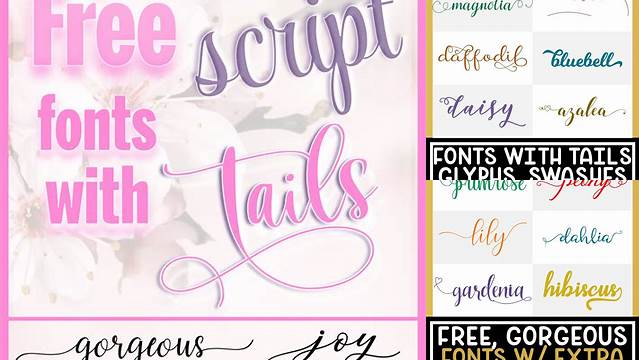
Elegant Cursive Fonts With Tails For Cricut
Hey crafters! Looking to add a touch of elegance to your projects? Then you're in the right place! We're diving deep into the world of cricut cursive fonts with tails today. These fonts are perfect for everything from wedding invitations to personalized gifts, and we're going to explore all the best options and how to use them like a pro. Let’s get started, guys!
1. What are Cursive Fonts with Tails?
So, what exactly are cursive fonts with tails? Well, these are script fonts that feature decorative strokes, or “tails,” extending from the letters. These tails, sometimes called swashes or flourishes, add a touch of sophistication and flair, making your text look handwritten and extra special. When you're working on a project that needs a bit of cricut cursive fonts with tails magic, these are your go-to options. Think about those beautiful wedding invitations or personalized home decor items – often, it’s the elegant font that truly makes them stand out. Understanding the characteristics of these fonts helps you select the perfect one for your project, ensuring it conveys the desired mood and style. The right font can transform a simple design into a stunning masterpiece.
2. Why Use Cursive Fonts with Tails for Cricut Projects?
Why should you bother using cursive fonts with tails for your Cricut projects? Simple: they add a touch of elegance and personality that other fonts just can't match. Imagine crafting a custom greeting card – a font with a beautiful tail on the final letter instantly elevates the design. Plus, with Cricut Design Space, it’s super easy to weld these fonts together, so your words flow seamlessly. When thinking about cricut cursive fonts with tails, consider how they can enhance your project's overall aesthetic. They're not just about looking pretty; they're about creating a lasting impression. Whether you're making personalized gifts, home décor, or event stationery, these fonts bring a level of sophistication that’s hard to ignore. And let's be honest, who doesn’t love a little extra flair?
3. Popular Cursive Fonts with Tails for Cricut
Okay, let's dive into some popular cricut cursive fonts with tails that you can use for your Cricut projects. Some top contenders include Samantha Script, known for its extensive set of alternate characters and elegant flourishes. Another great option is Sweet Pea, which has a more playful but still sophisticated vibe. Shelley Allegro Script is also a classic choice, offering a timeless and refined look. These fonts are widely used because they are versatile and work well for a variety of projects. When you're selecting a font, consider the overall style you're aiming for. Do you want something very formal and traditional, or a bit more modern and whimsical? Knowing this will help you narrow down your choices and find the perfect fit for your creation.
4. Samantha Script: A Detailed Look
Let’s take a closer look at Samantha Script, one of the most beloved cricut cursive fonts with tails. This font is a crafter's dream because it comes with hundreds of alternates, swashes, and flourishes. You can really customize your text to make it look unique and handcrafted. The flowing lines and elegant tails make it ideal for wedding invitations, monograms, and personalized gifts. When using Samantha Script, take advantage of its extensive character set. Experiment with different letter combinations and swashes to achieve the exact look you want. This font is particularly stunning when used for larger text, allowing the delicate details of the tails to truly shine. It’s a true workhorse for any project needing that touch of elegance.
5. Sweet Pea Font: A Playful Option
If you're after something a little less formal but still beautiful, Sweet Pea is a fantastic cricut cursive fonts with tails choice. This font has a playful and whimsical feel, making it perfect for projects like nursery decor, birthday cards, or anything that needs a touch of sweetness. The tails are less dramatic than Samantha Script, but they still add plenty of charm. Sweet Pea is also super readable, which is important for projects where clarity is key. When working with this font, think about using it in conjunction with a simpler sans-serif font to create a balanced and visually appealing design. It’s great for adding a personal touch to any project, making it feel extra special and made with love.
6. Shelley Allegro Script: Timeless Elegance
For a timeless and elegant look, Shelley Allegro Script is a top pick in the world of cricut cursive fonts with tails. This font exudes sophistication and is perfect for formal occasions like weddings or anniversaries. The graceful curves and delicate tails give it a classic, refined appearance. Shelley Allegro Script is particularly well-suited for projects where you want to convey a sense of tradition and luxury. It’s often used in high-end stationery and formal invitations. When using this font, pay attention to the spacing between letters to ensure optimal readability. The flowing tails can sometimes overlap, so it’s essential to adjust the kerning to achieve a polished and professional look. Elegance is the name of the game with this font!
7. How to Download Cursive Fonts with Tails
So, how do you actually get these gorgeous cricut cursive fonts with tails onto your computer and into Cricut Design Space? There are several ways to download fonts. Many designers sell their fonts on websites like Etsy, Creative Market, and FontBundles. You can also find free fonts on sites like DaFont and Google Fonts, but always double-check the licensing terms to make sure they're okay for commercial use if you plan on selling your creations. Once you've downloaded the font, you'll usually need to install it on your computer before it will show up in Cricut Design Space. This typically involves double-clicking the font file and following the installation prompts. It’s a straightforward process, but don’t forget that licensing is key to avoid any legal issues!
8. Installing Fonts for Cricut Design Space
Installing fonts for Cricut Design Space is a crucial step in using cricut cursive fonts with tails. After you've downloaded your font, you'll need to install it on your computer. On Windows, this usually involves right-clicking the font file and selecting “Install.” On a Mac, you can double-click the font file, and it will open in Font Book, where you can click “Install Font.” Once the font is installed, you'll likely need to restart Cricut Design Space for it to recognize the new font. Sometimes, even restarting your computer can help ensure the font loads properly. Remember, the font needs to be installed on your system for Cricut Design Space to access it. It’s a simple process, but it’s a necessary one to unleash your creative potential!
9. Welding Cursive Fonts in Cricut Design Space
Weld, weld, weld! Welding is essential when working with cricut cursive fonts with tails in Cricut Design Space. Because cursive letters are designed to connect, you'll want to weld them together so they cut as a single piece, rather than individual letters. This is particularly important for fonts with tails, as the tails often overlap and need to be seamlessly joined. In Cricut Design Space, you can select your text, go to the “Actions” menu, and click “Weld.” This will merge the letters into a single shape, ensuring a clean and professional cut. If you skip this step, your Cricut will cut each letter separately, which can look disjointed and messy. Welding is your secret weapon for achieving that flawless cursive look, so don’t forget this crucial step!
10. Adjusting Letter Spacing (Kerning) in Cricut
Getting the letter spacing just right, also known as kerning, is super important when using cricut cursive fonts with tails. Sometimes, the default spacing between letters in a font isn't ideal, especially with the added tails. Letters might look too close together or too far apart, which can affect readability and the overall aesthetic. Cricut Design Space has tools to adjust letter spacing. You can manually adjust the spacing by ungrouping the letters and moving them individually, or you can use the letter spacing tool to adjust the spacing more uniformly. Pay close attention to how the tails interact with adjacent letters. You might need to tweak the position of certain letters to ensure a smooth, flowing look. Perfect kerning can make all the difference in the final result!
11. Using Alternate Characters and Swashes
One of the coolest features of many cricut cursive fonts with tails is the availability of alternate characters and swashes. These are special versions of letters that add extra flair and customization to your text. For example, a font might have several versions of the letter “t,” each with a different tail. To access these alternates in Cricut Design Space, you'll typically need to use a character map program (on Windows) or the Font Book (on Mac). These programs let you see all the characters included in a font, including the hidden alternates. Copy and paste the desired characters into Cricut Design Space to create a truly unique design. Experimenting with alternates is a fantastic way to add personality and make your projects stand out!
12. Cursive Fonts with Tails for Wedding Invitations
When it comes to wedding invitations, cricut cursive fonts with tails are a match made in heaven. These fonts add a touch of romance and elegance, perfect for setting the tone for a special day. Imagine sending out invitations with beautifully flowing calligraphy, personalized with a stunning font. Popular choices for wedding invitations include Samantha Script, Shelley Allegro Script, and other similar fonts that exude sophistication. When designing your invitations, consider using a combination of a cursive font for the names and a simpler sans-serif font for the details like date and time. This creates a balanced and readable design. Remember, your wedding invitations are the first impression your guests will have of your big day, so make it count with a gorgeous cursive font!
13. Creating Personalized Gifts with Cursive Fonts
Personalized gifts are always a hit, and cricut cursive fonts with tails can take them to the next level. Think about adding a name or a special message to a mug, a tote bag, or a piece of home decor. These fonts make the gift feel extra special and thoughtful. For example, a delicate cursive font on a baby blanket or a mug with a monogrammed initial makes a heartfelt present. When creating personalized gifts, consider the recipient's style and preferences. A more playful font like Sweet Pea might be perfect for a child's gift, while a classic font like Shelley Allegro Script might be better suited for a more formal occasion. Using the right font can transform a simple gift into a cherished keepsake. A dash of cursive elegance goes a long way!
14. Home Decor Projects Using Cursive Fonts
Adding cricut cursive fonts with tails to your home decor projects is a fantastic way to personalize your space. Imagine creating a beautiful wall sign with an inspiring quote or adding custom labels to your storage containers. Cursive fonts bring a touch of warmth and personality to any room. You can use your Cricut to cut out vinyl decals, stencils, or even engrave wood or acrylic. Consider using a larger font size for wall decor so the tails and flourishes are easily visible. Font choices like Samantha Script or even a bold, modern cursive can make a statement piece. Home decor is all about expressing your style, and incorporating elegant typography is a great way to do it!
15. Monogramming with Cursive Fonts
Monogramming is a classic way to personalize items, and cricut cursive fonts with tails are perfect for creating beautiful monograms. Whether you're adding initials to a towel, a bag, or a piece of clothing, a cursive font gives it a sophisticated and custom look. Many fonts come with special monogram characters or swashes that are designed specifically for this purpose. When creating monograms, consider the order of the initials and the size of the letters. Traditionally, the last name initial is placed in the center and is slightly larger than the other initials. A well-designed monogram adds a touch of personal flair and elevates any item it adorns.
16. Using Cursive Fonts for Business Branding
Cricut cursive fonts with tails can also play a significant role in business branding. A stylish cursive font can help your brand convey a sense of elegance, sophistication, or creativity. Think about using a cursive font for your logo, website headers, or marketing materials. It can help your brand stand out and make a memorable impression. However, it’s essential to use cursive fonts strategically. While they can add a touch of personality, you also want to ensure your branding is clear and readable. A cursive font paired with a simpler sans-serif font often creates a balanced and professional look. When it comes to branding, the right font can communicate your brand identity effectively.
17. Combining Cursive Fonts with Other Font Styles
One of the best ways to make your designs truly shine is by combining cricut cursive fonts with tails with other font styles. Pairing a cursive font with a clean sans-serif or a bold serif font can create a visually appealing contrast that enhances readability and adds interest to your project. For example, you might use a cursive font for a heading or title and a sans-serif font for the body text. This approach helps to create a balanced and professional design. When choosing fonts to combine, consider their overall style and weight. A delicate cursive font pairs well with a bolder, more substantial font. The key is to create a harmonious balance that’s both visually engaging and easy to read.
18. Best Materials to Use with Cursive Fonts
When working with cricut cursive fonts with tails, the material you choose can significantly impact the final result. For delicate fonts with intricate tails, it’s crucial to use high-quality materials that won’t tear or fray during cutting. Vinyl is a popular choice for cursive fonts, as it adheres well to various surfaces and provides a clean, crisp cut. Paper and cardstock are also great options, especially for projects like invitations and cards. For fabric projects, consider using heat transfer vinyl, which can be easily applied with a heat press or iron. No matter the material, always do a test cut first to ensure your font cuts cleanly and the tails don’t get damaged. Material matters when you want a flawless finish!
19. Cutting Delicate Tails: Tips and Tricks
Cutting delicate tails on cricut cursive fonts with tails can be a bit tricky, but with the right tips and tricks, you can achieve stunning results. First, make sure your blade is sharp and your cutting mat is clean and sticky. A dull blade or a dirty mat can cause the material to tear or lift during cutting. Use the correct cut settings for your material. If the tails are particularly fine, try using the “Intricate Cut” setting on your Cricut. Slowing down the cutting speed can also help. After cutting, carefully weed the excess material, using a weeding tool to gently lift the vinyl or paper away from the tails. Patience is key here. With a little practice, you’ll be cutting those delicate tails like a pro!
20. Troubleshooting Common Cutting Issues
Even with the best planning, you might encounter some cutting issues when working with cricut cursive fonts with tails. One common problem is tearing, which can occur if your blade is dull, your material is too thin, or your cut settings are incorrect. Another issue is lifting, where the material lifts off the cutting mat during the cut. This can be caused by a worn-out mat or a material that isn’t adhering well. To troubleshoot, start by checking your blade and mat. Replace the blade if it’s dull, and clean or replace your mat if it’s not sticky enough. Adjust your cut settings and try a test cut. If you’re still having problems, try using a different material or slowing down the cutting speed. Troubleshooting is all part of the crafting process!
21. Maintaining Your Cricut for Optimal Font Cutting
To ensure your Cricut consistently cuts cricut cursive fonts with tails beautifully, regular maintenance is crucial. A well-maintained machine will perform better and last longer. Start by cleaning your cutting mat regularly. Use a scraper or a lint roller to remove any debris. Replace your blade as needed, especially if you notice tearing or uneven cuts. Check your machine’s rollers and clean them if they’re dirty. Periodically calibrate your Cricut to ensure it’s cutting accurately. Following a regular maintenance schedule will keep your Cricut in top condition and help you achieve flawless results every time. Think of it as giving your Cricut some TLC!
22. Free vs. Paid Cursive Fonts with Tails
When searching for cricut cursive fonts with tails, you'll come across both free and paid options. Free fonts can be a great way to start, but it’s essential to pay attention to licensing terms. Many free fonts are for personal use only, meaning you can’t use them for commercial projects. Paid fonts often come with a wider range of characters and better support, and they typically have a commercial license included. Consider your needs and budget when choosing between free and paid fonts. If you’re just starting out and experimenting, free fonts might be a good option. But if you’re creating projects to sell, investing in high-quality paid fonts is a wise choice.
23. Understanding Font Licensing for Commercial Use
Speaking of licensing, understanding font licensing for commercial use is crucial if you plan to sell projects made with cricut cursive fonts with tails. Most fonts come with a license that specifies how you can use them. A personal use license typically means you can use the font for your own projects but not for anything you sell. A commercial license allows you to use the font for commercial purposes, such as creating products for sale or using it in your business branding. Always read the font license carefully before using a font for commercial projects. Using a font without the appropriate license can lead to legal issues, so it’s better to be safe than sorry. Licensing matters, folks!
24. Designing Invitations for Special Occasions
Designing invitations for special occasions is where cricut cursive fonts with tails truly shine. Whether it’s a wedding, a birthday, or a graduation, a beautifully designed invitation sets the tone for the event. Cursive fonts add a touch of elegance and sophistication, making the invitation feel extra special. When designing invitations, consider the overall style and theme of the event. A formal occasion might call for a classic cursive font like Shelley Allegro Script, while a more casual event could use a playful font like Sweet Pea. Pay attention to the layout and spacing of the text, and don’t be afraid to experiment with different font combinations. Your invitations are a sneak peek of the celebration to come!
25. Creating Custom Stickers with Cursive Fonts
Custom stickers are a fun and versatile project, and cricut cursive fonts with tails can add a personal touch. Imagine creating stickers with your name, a favorite quote, or a fun design. You can use these stickers to decorate notebooks, laptops, water bottles, and more. When creating stickers with cursive fonts, make sure the tails are well-connected and the design is clean and easy to read. Use a high-quality sticker paper that’s durable and waterproof. You can also add a clear laminate layer for extra protection. Stickers are a fantastic way to express your personality and add a bit of fun to everyday items.
26. Making Labels for Organization Using Cursive Fonts
Organization doesn't have to be boring! Using cricut cursive fonts with tails to create labels can add a touch of style to your organizational efforts. Imagine labeling your pantry containers, storage bins, or office supplies with elegant cursive fonts. It not only looks great but also helps you stay organized. When making labels, choose a font that’s easy to read from a distance. Use a durable label material that will withstand wear and tear. You can also use different colors to categorize items. Stylish labels can make organizing feel less like a chore and more like a pleasure!
27. Adding Cursive Fonts to Paper Crafts
Paper crafts get an extra dose of elegance with cricut cursive fonts with tails. Whether you’re making cards, scrapbook pages, or gift tags, a cursive font can elevate your project. Think about adding a heartfelt message to a handmade card or creating a scrapbook title with a beautiful flowing font. When using cursive fonts in paper crafts, consider the weight of the paper. Thicker cardstock is ideal for intricate cuts, as it’s less likely to tear. You can also add embellishments like glitter, ribbon, or stamps to enhance your design. Paper crafts become extra special with the right font!
28. Engraving Cursive Fonts with Cricut
Did you know you can engrave with your Cricut? Using cricut cursive fonts with tails for engraving projects opens up a whole new world of possibilities. Imagine engraving a personalized message on a metal bracelet, a wooden plaque, or an acrylic keychain. Engraving adds a permanent and elegant touch to any item. To engrave with your Cricut, you’ll need the engraving tip and compatible materials. Choose a font that’s bold enough to show up well when engraved, but still maintains its elegance. Practice on scrap materials first to get a feel for the process. Engraving with cursive fonts adds a touch of sophistication that’s hard to beat!
29. Cursive Fonts for T-Shirt Designs
Cricut cursive fonts with tails can also be used to create stylish t-shirt designs. Whether you’re making shirts for yourself, your family, or your business, a cursive font can add a personal touch. Think about adding a monogram, a quote, or a name to a t-shirt. When designing t-shirts, use heat transfer vinyl and mirror your image before cutting. Choose a font that’s easy to read and won’t get lost in the fabric. Bold cursive fonts often work best for t-shirt designs. A custom t-shirt with a beautiful cursive font is a fantastic way to express your style!
30. Future Trends in Cursive Font Design
What does the future hold for cricut cursive fonts with tails? We’re likely to see even more variations and styles emerging, blending traditional calligraphy with modern design elements. Expect to see fonts with more intricate tails, unique swashes, and a wider range of alternate characters. There’s also a trend towards fonts that mimic real handwriting, giving projects an even more personal touch. As crafting technology advances, we may also see fonts designed specifically for different materials and techniques, such as engraving or etching. The world of cursive fonts is constantly evolving, so stay tuned for exciting new trends!